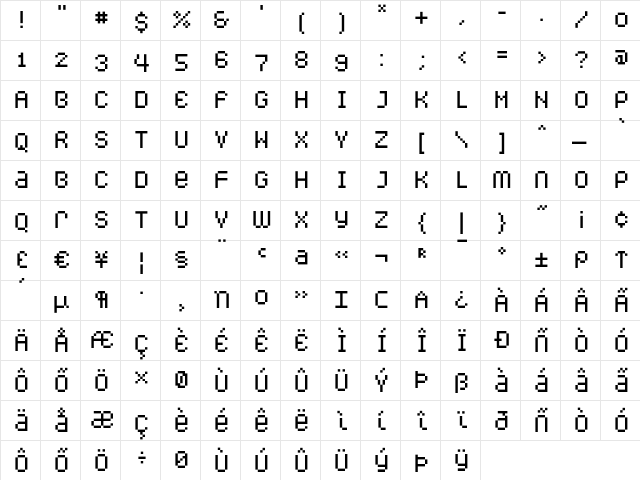
CALIPER 444UC
Design Context for CALIPER Typeface
CALIPER takes a measured approach to typography — its balanced proportions and neutral character make it a reliable workhorse for both digital and print work.